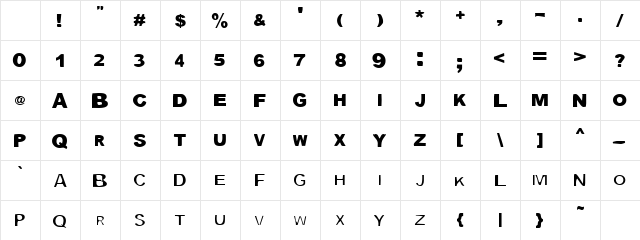
Blockquote is a composed and adaptable typeface that performs quietly and consistently across a wide range of design contexts.
Pro Tip: Use Blockquote in both headline and body roles to test its range before committing to a single application.